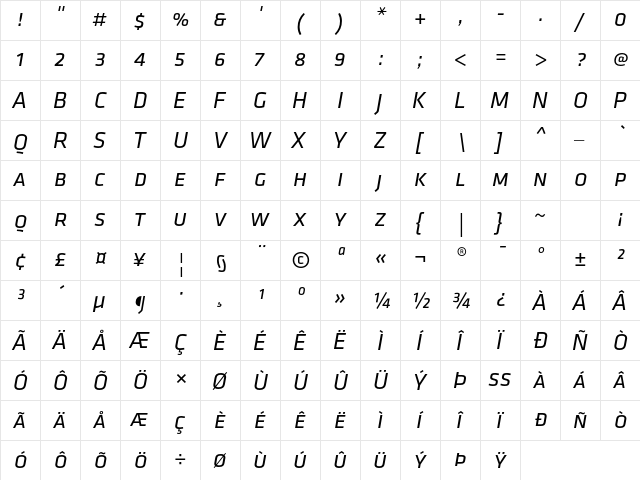
Klavika Reg Caps Italic
Design Context for Klavika Reg Caps Typeface
Klavika Reg Caps is a composed and adaptable typeface that performs quietly and consistently across a wide range of design contexts. Its italic angle brings a sense of urgency and motion to the letterforms.
Pro Tip: Use Klavika Reg Caps for emphasis, pull quotes, and subheadings where its slanted energy can add rhythm to the layout.